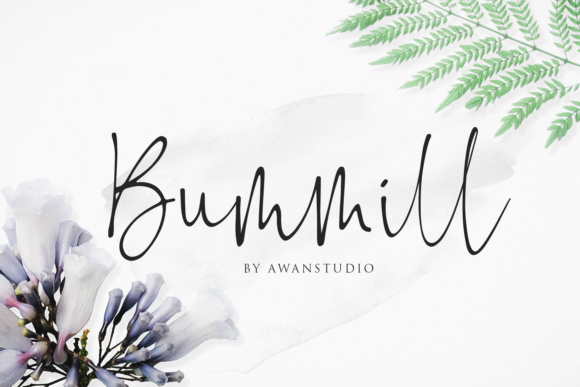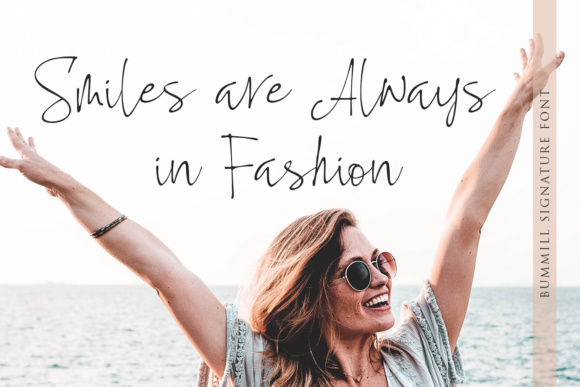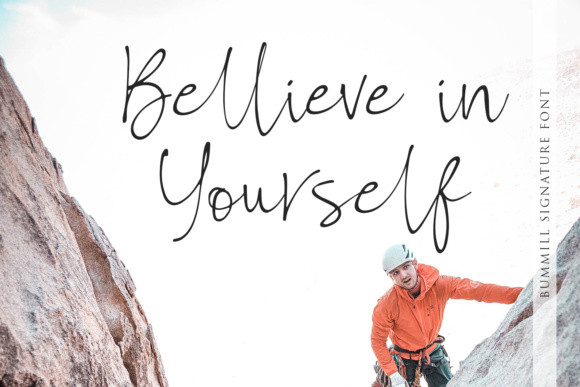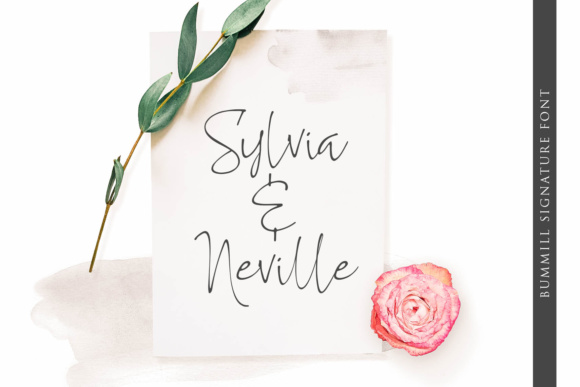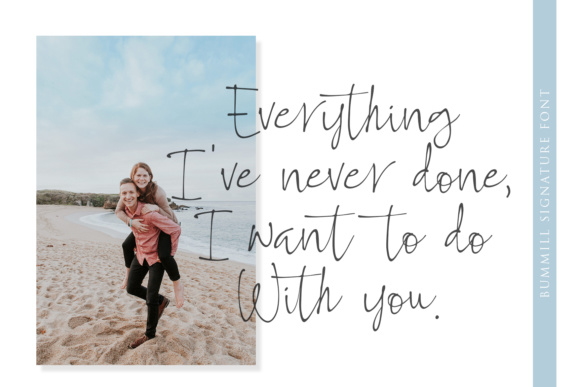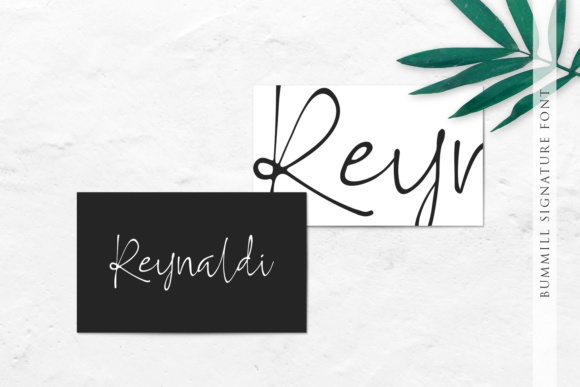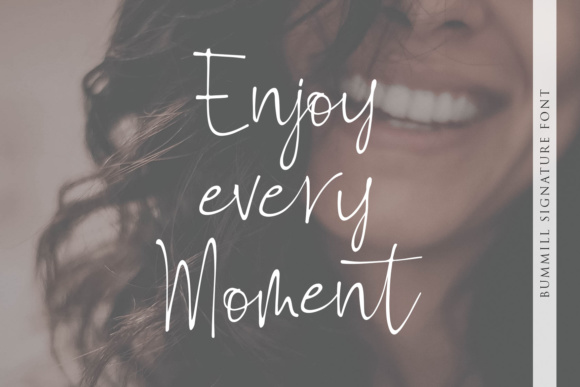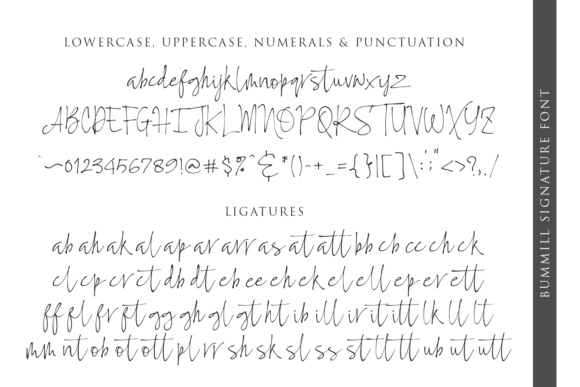
Bummill Font
About Bummill Font
Bummill is a beautiful signature font, perfect for invitationals and fashion projects. This font can add a high level of style to your work, and has a refreshing and elegant feel.